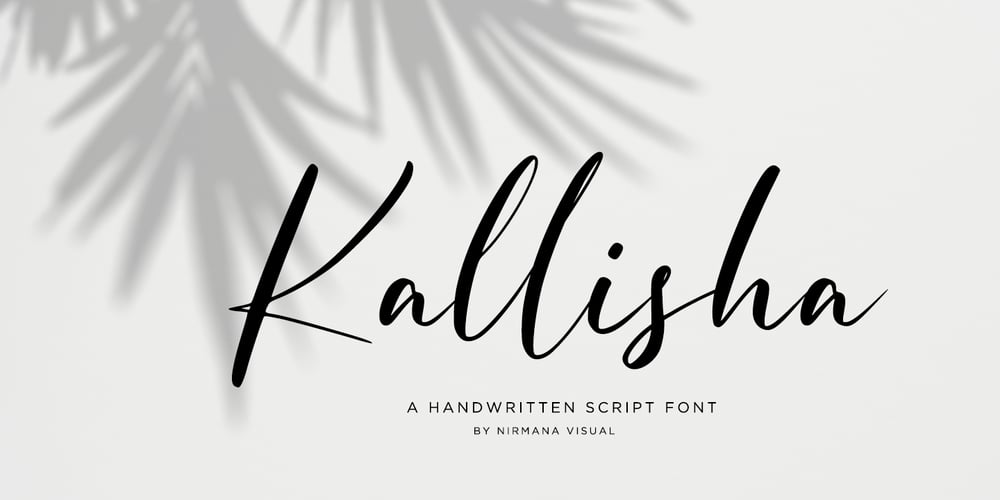
Kallisha Font Family was designed by Sigit Dwipa and published by Nirmana Visual. Kallisha contains 1 styles and family package options. Kallisa is such a artistic font, Script with a touch of hand-written,It’s best used for logos, wedding stationery, social media, and quotes.Kallisha features: Multilanguange PUA Encoded Thank you!